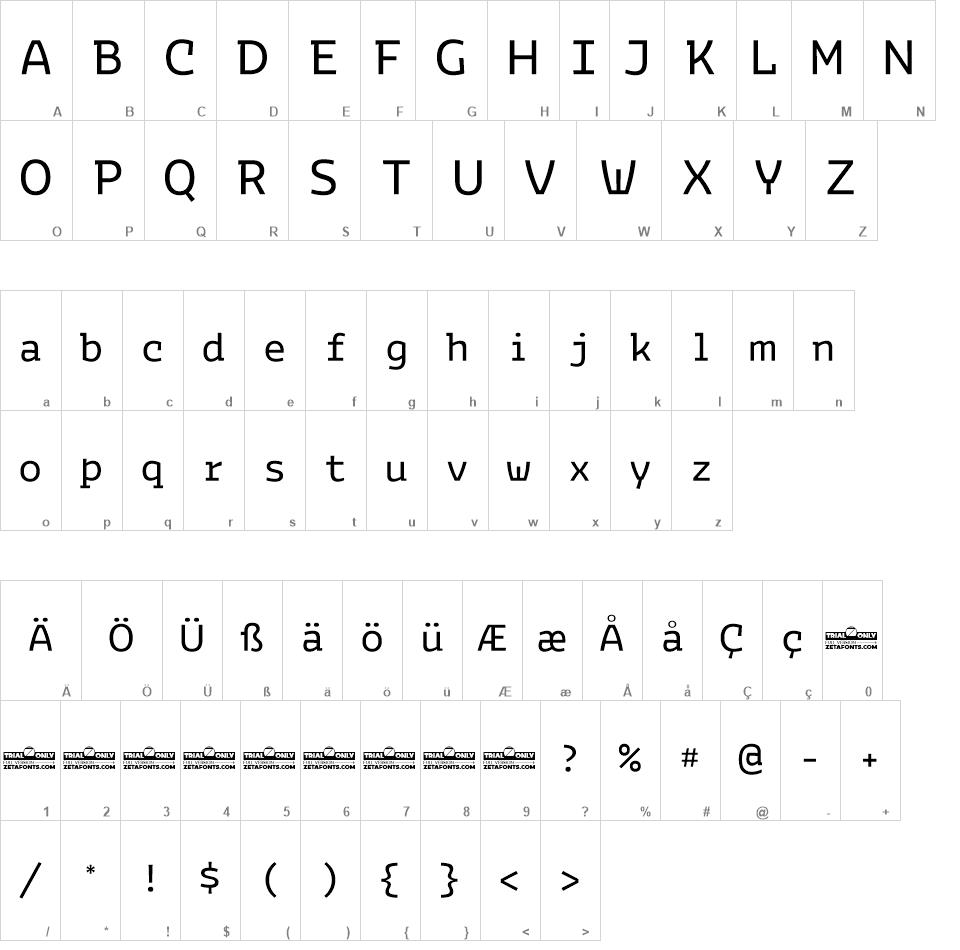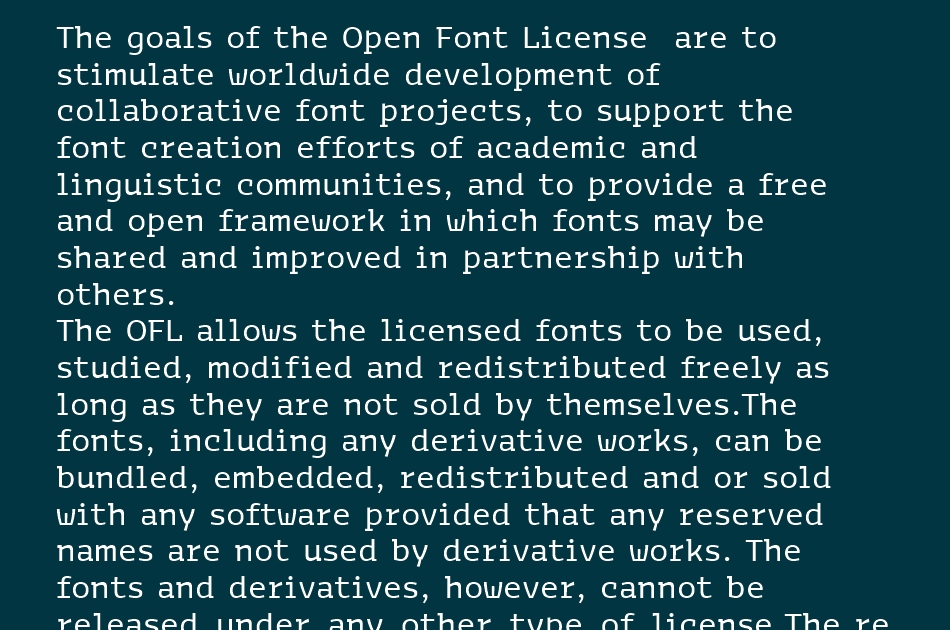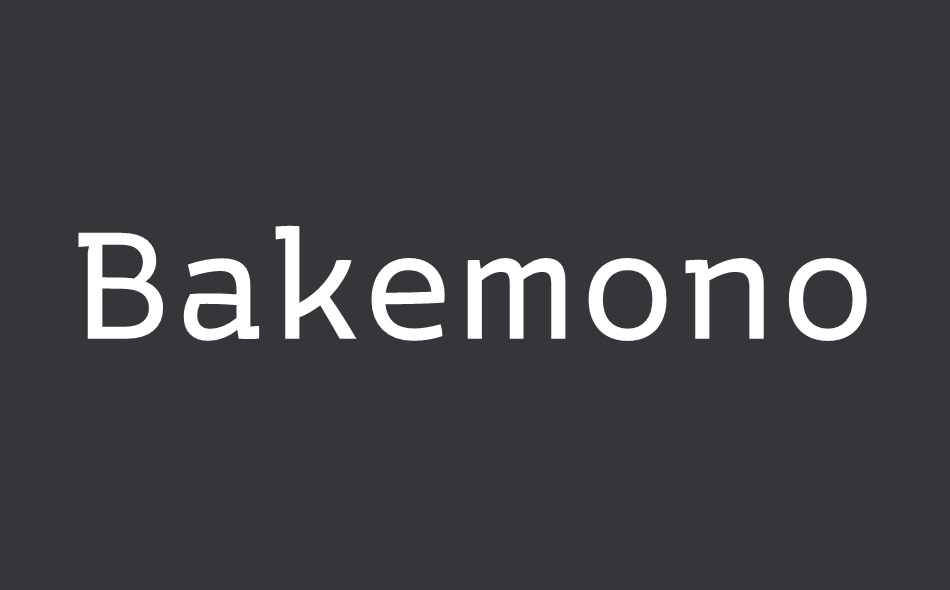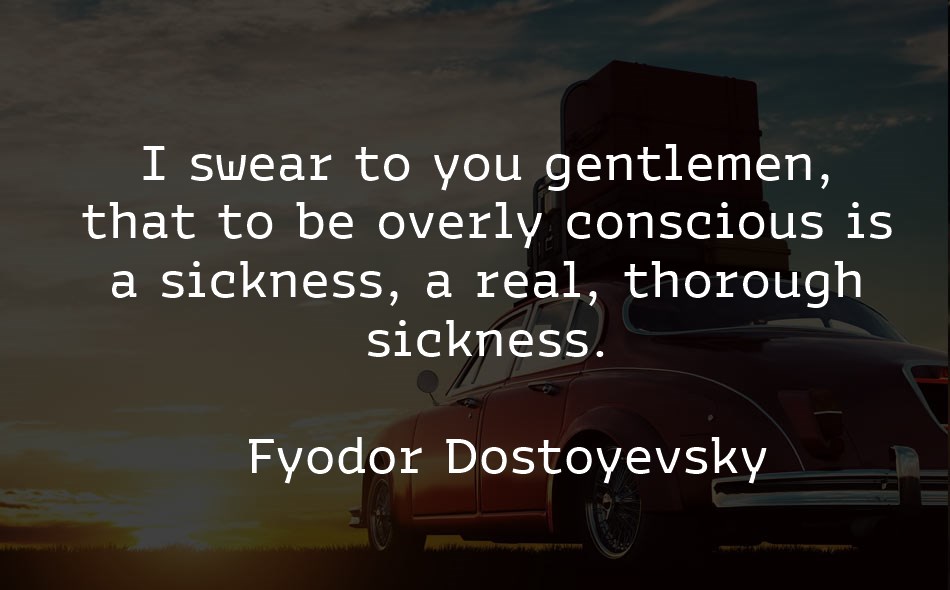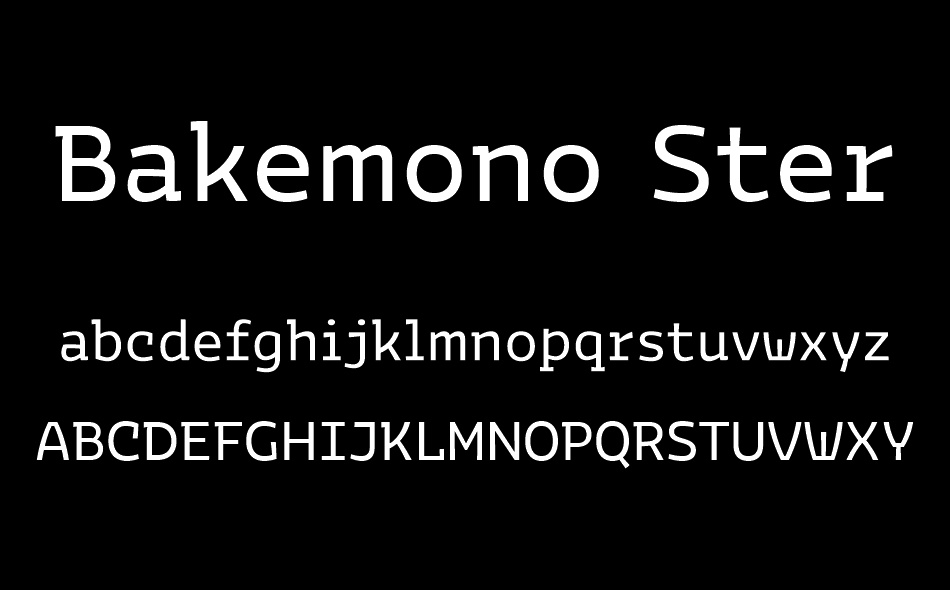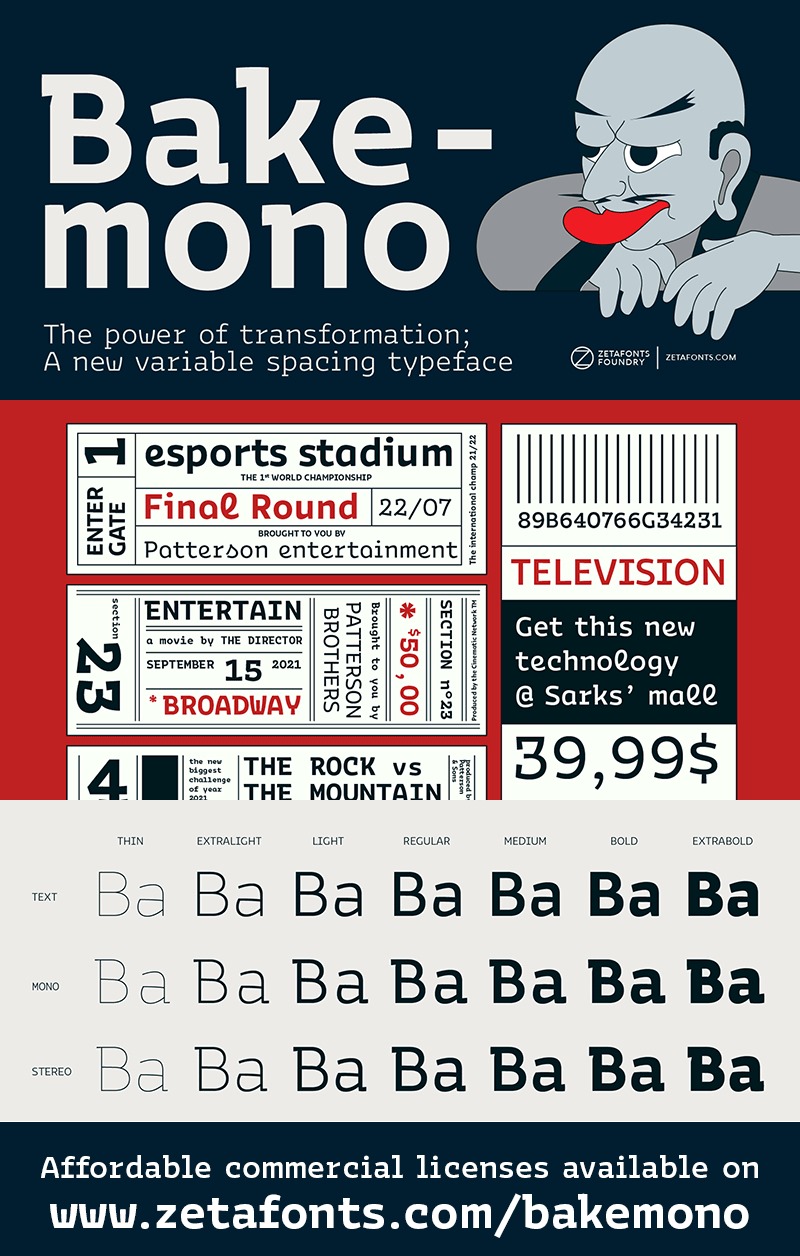
Bakemono Stereo font
Francesco Canovaro created Bakemono as a way to explore the design space around the duality of fixed/proportional width. He was also interested in the concept of monowidth design, inherent in monospaced typefaces, that can bring flexibility and ease of use also to proportional type - allowing you to change the weight of a word without losing the text alignment. In his research on fixed width type design he mixed the lessons of mechanical typewriter technology with the intuitions of eastern brush calligraphy, which has been dealing with for centuries with fixed space grids.
The name of the typeface comes from the Japanese shape-shifter yokais that could change their form freely between human and animal, and aptly describes the metamorphic nature of this wide superfamily coming in proportional, monospace and intermediate subfamilies. With a design mixing the expansion principles of the brush with the sharp technicality of typewriter and system fonts, Bakemono can both excel at text size in its regular widths optimised for legibility as well as owning the page at display size with its uncommon design details.